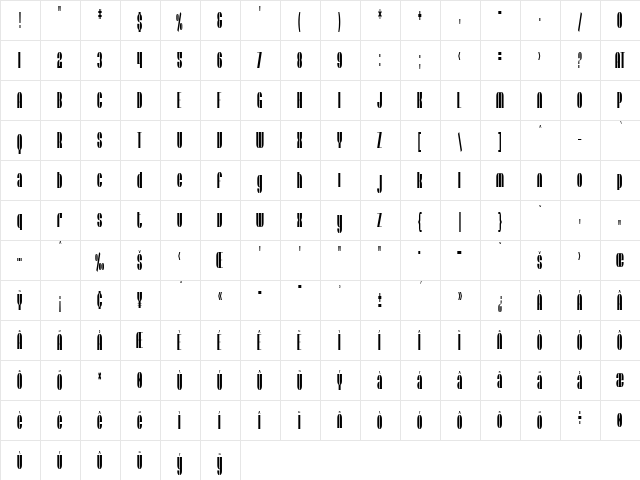
SF Baroquesque Regular
Design Context for SF Baroquesque Typeface
SF Baroquesque offers clean, dependable letterforms without strong stylistic allegiance, making it a practical choice for designers who need flexibility.